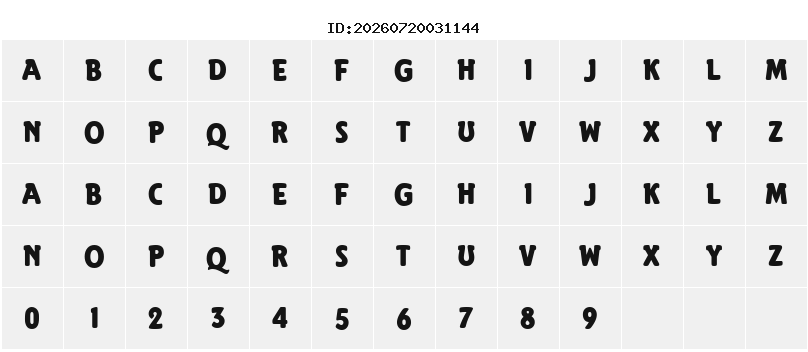
Elmshorn Preview
• Font Name: Elmshorn
• Designer: SoftMaker Software GmbH
• Manufacturer: SoftMaker Software GmbH
About Elmshorn.ttf
Elmshorn.ttf is a modern, elegant sans-serif font designed for ultimate readability and visual harmony. Perfect for branding, headlines, web design, and print materials.